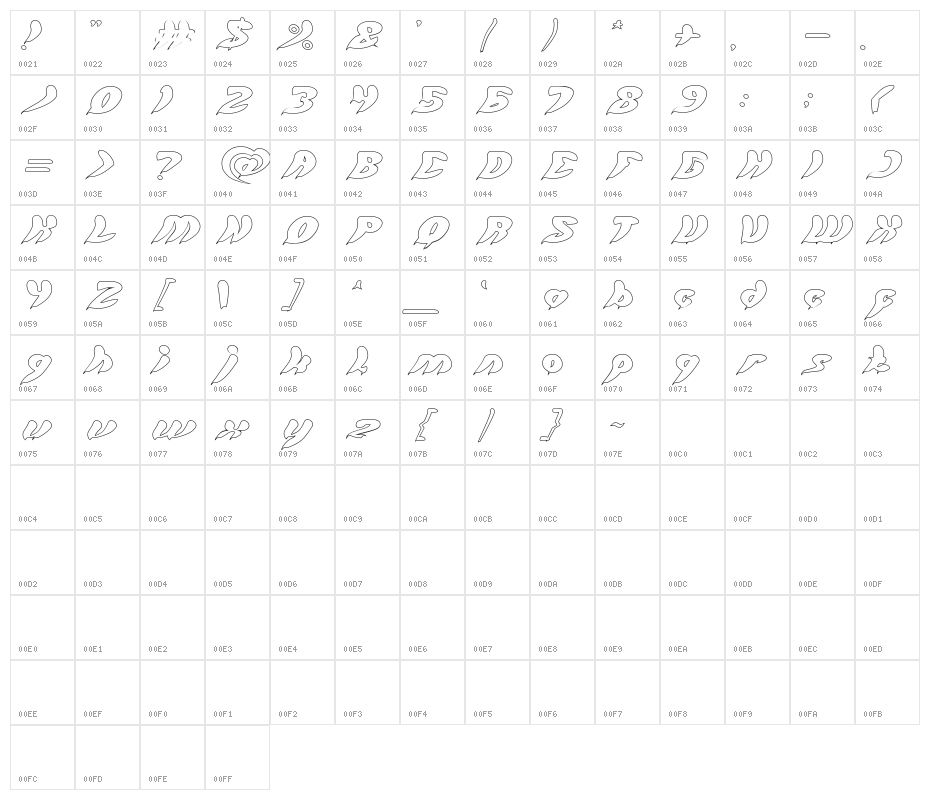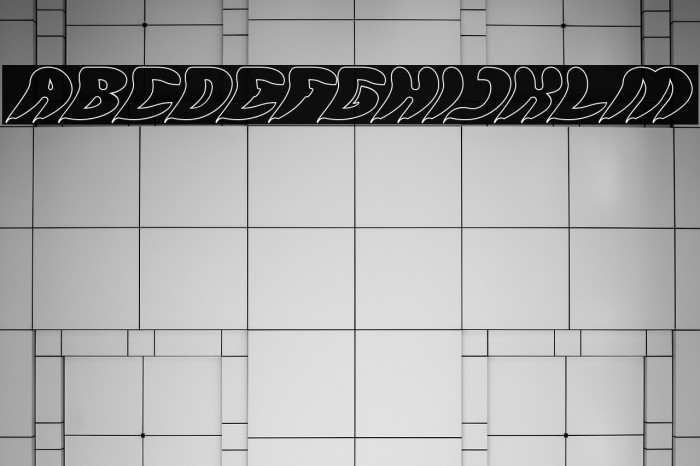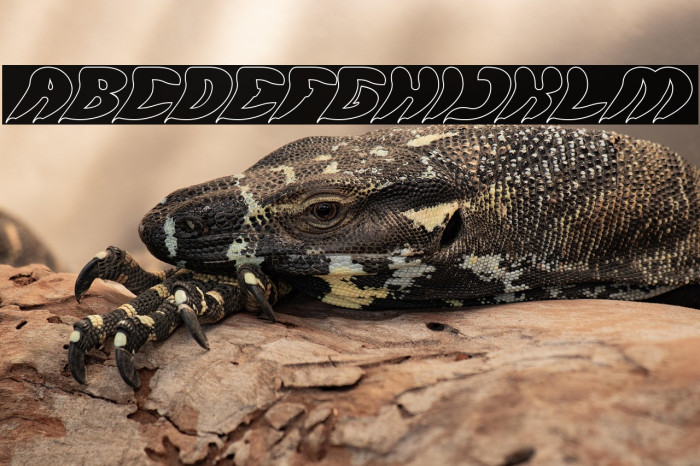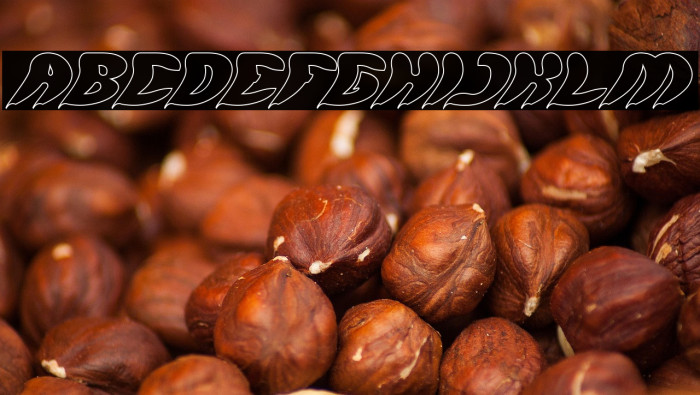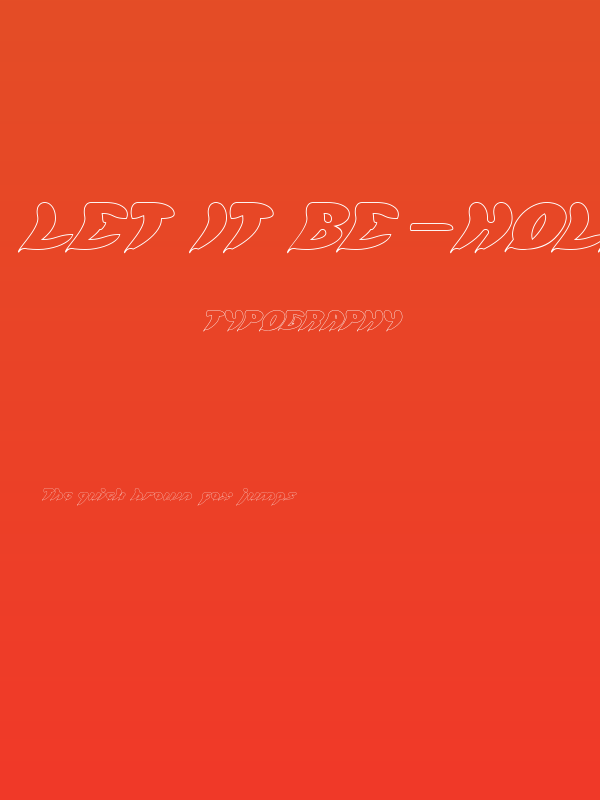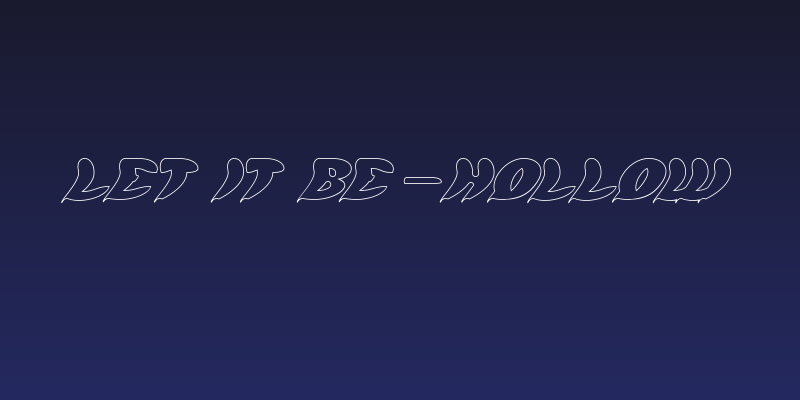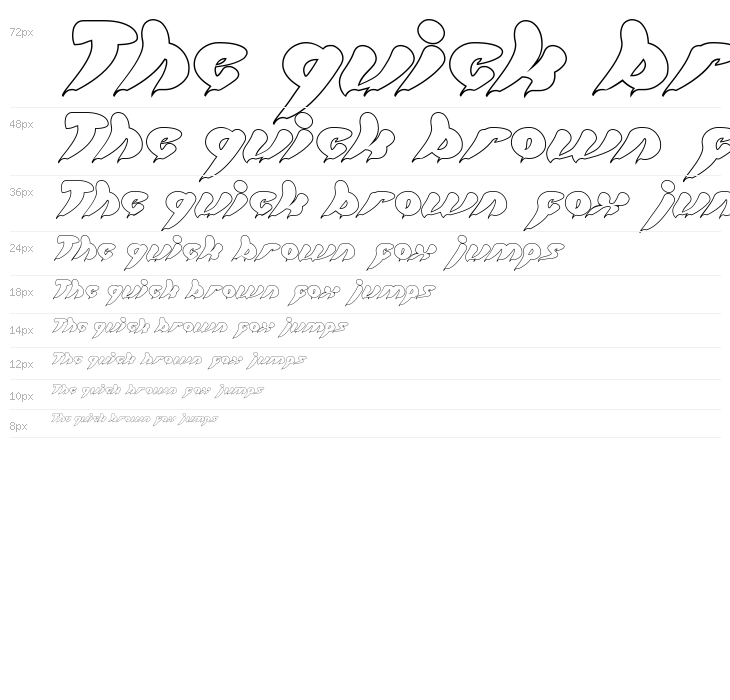
let it be-Hollow Font
let it be-Hollow Description
This font features a dynamic and bold style with a hollow, outlined appearance. The letters have a fluid, almost cursive quality, with sharp, pointed edges that give them a sense of movement and energy. The uppercase and lowercase letters maintain a consistent style, with the lowercase being slightly more compact. Numbers and special characters follow the same design principles, ensuring a cohesive look across all glyphs. The font's unique design makes it stand out, ideal for projects that require a touch of flair and creativity.